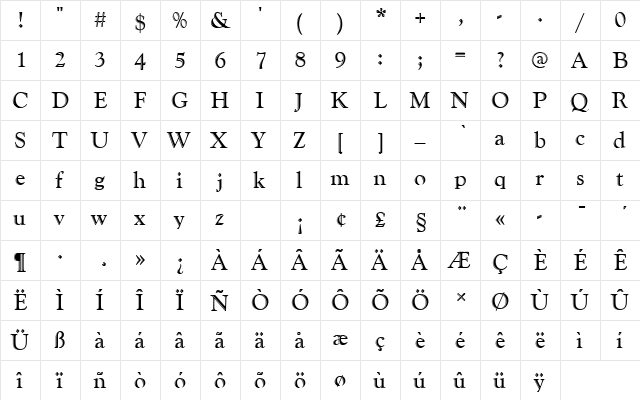
GoudyHanDRo1 Regular
GoudyHanDRo1 flows with the natural rhythm of handwritten lettering, making it ideal for designs that call for warmth and personal expression.